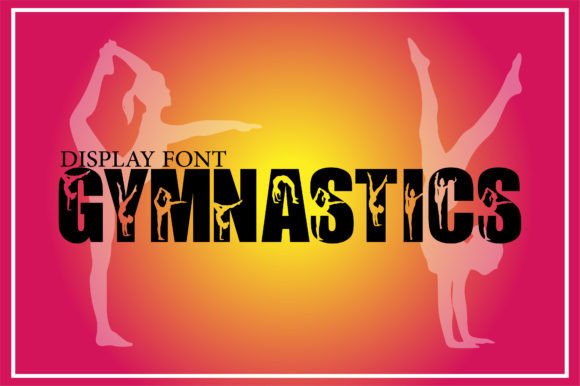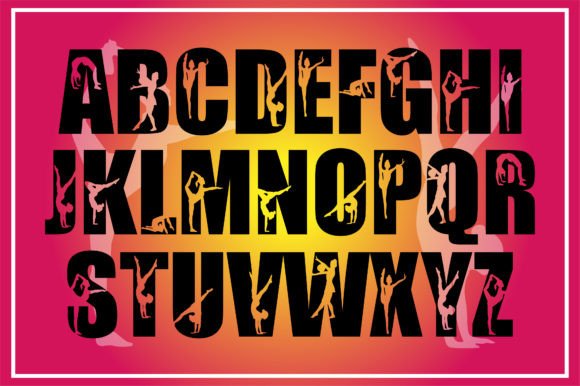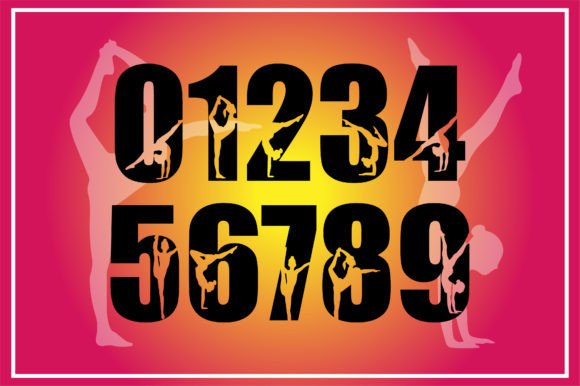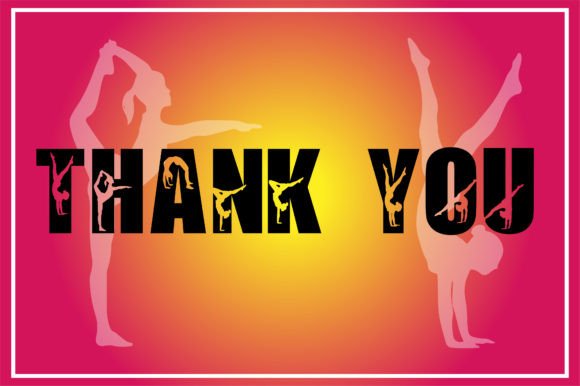
Gymnastics Font
About the Gymnastics Font
Presenting Gymnastics Font, a unique and stylish typeface that will make your work stand out. Gymnastics is a cool and original-looking decorative font. Whether you are using it for cartoon-related designs, children’s games, quotes, titles, brand names, book covers, posters, or just any creation that requires a touch of joy, this font is a great choice.
Gymnastics thrives in headline applications, short-form text like logos and branding elements, and playful posters. Its decorative nature makes it ideal for projects targeting a younger audience or those requiring a vibrant, energetic feel. Avoid using it for body copy or lengthy paragraphs; its unique forms can hinder readability in extended text settings. Similarly, its playful personality isn’t suited to projects requiring seriousness or formality.
Pairing Gymnastics with a clean sans-serif like Open Sans for body text creates a balanced contrast of playful and legible. For a more sophisticated feel, consider pairing it with a classic serif like Garamond or a slightly more geometric sans-serif such as Lato. These pairings allow Gymnastics to shine as a distinctive headline font without overwhelming the overall design.
The font’s core personality is undeniably playful and bold, possessing a childlike energy without being overly childish. This makes it a strong choice for brands and projects emphasizing fun, creativity, and approachability.